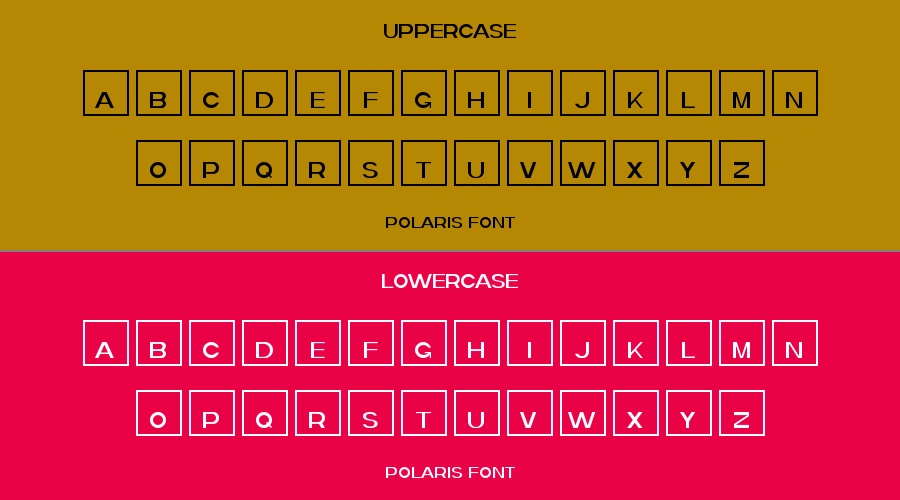
About Polaris Font
Polaris Font represents a sophisticated approach to type design, balancing elegant spacing with clarity. Perfect for advertising campaigns, this font family showcases impressive functionality and design innovation throughout its character set. Designers appreciate its versatility and reliability.
Designers will appreciate nuanced touches including tapered strokes and kerning pairs, adding sophistication to any project. These features become apparent in ceremonial texts, where color application matters most. The careful treatment of curve radius and cultural context ensures optimal performance.